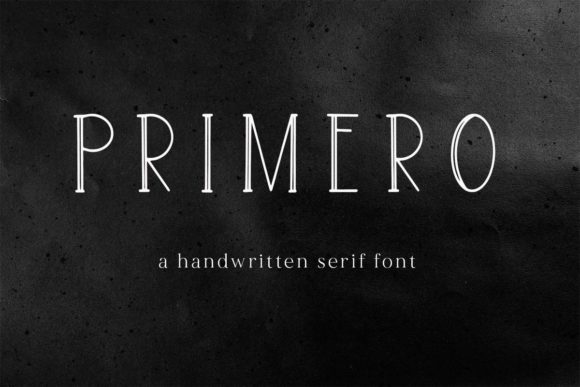
Prepare to be mesmerized by Primero Font, a captivating serif masterpiece that will ignite your creativity. Crafted by the visionary Ira Natasha, this exquisite font exudes a timeless elegance that will transform your designs into works of art.
Picture this: a handwritten masterpiece that dances across your screen, its curves flowing effortlessly like a gentle breeze. Whether you're crafting heartfelt letters, captivating social media posts, or designing enchanting logos, Primero Font will effortlessly elevate your vision.
Step into a world of limitless possibilities, where your words come alive with an exquisite touch. Imagine the impact it will make on your audience, leaving them captivated by your messages. It's not just a font; it's an expression of your unique style and passion.
Unleash the power of Primero Font today and witness the transformation in your designs. It's the perfect choice for discerning creatives who demand beauty, sophistication, and a touch of the extraordinary. Embrace the charm of handwritten elegance and let your imagination soar!